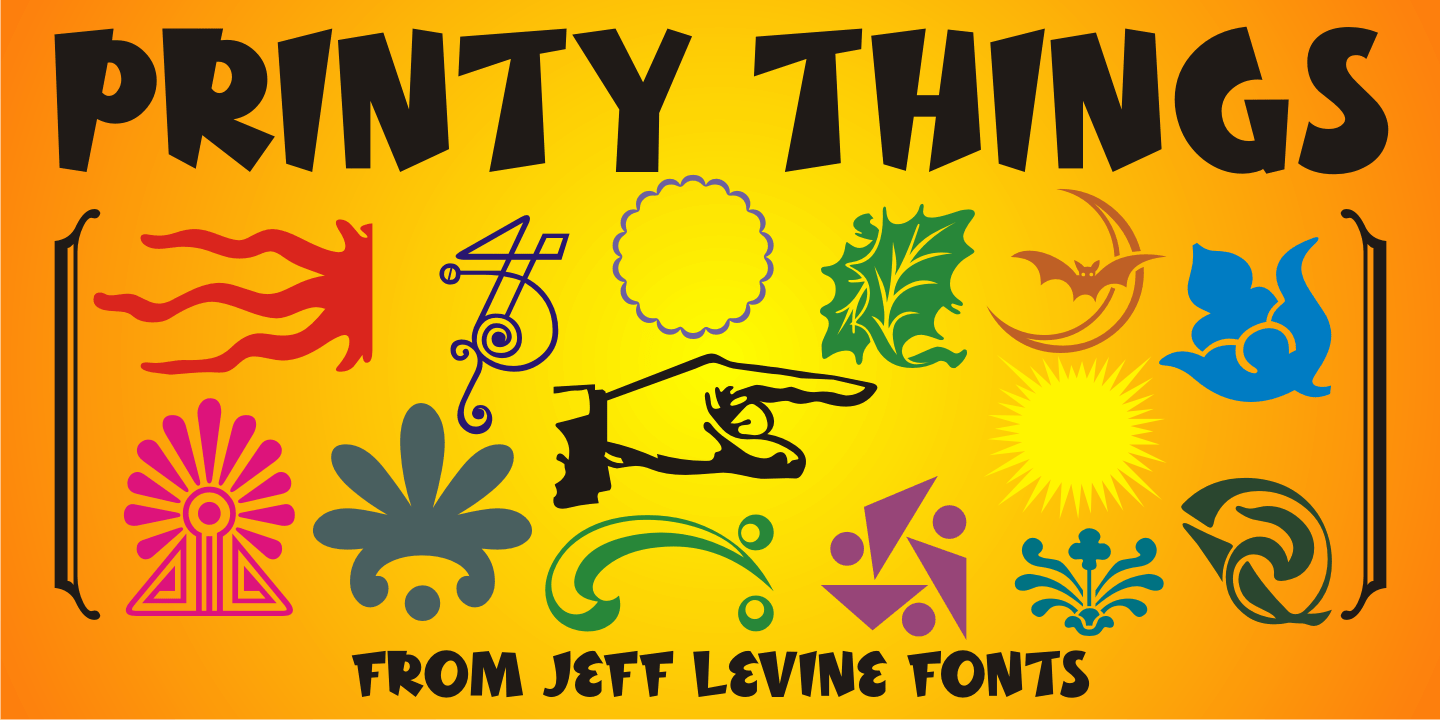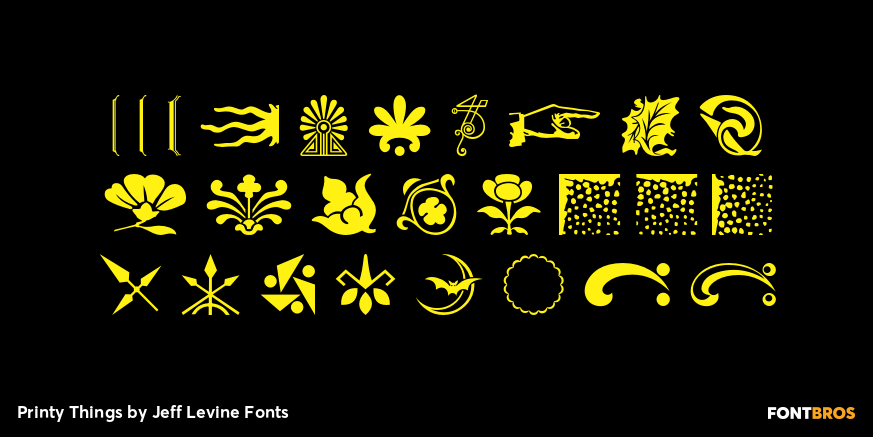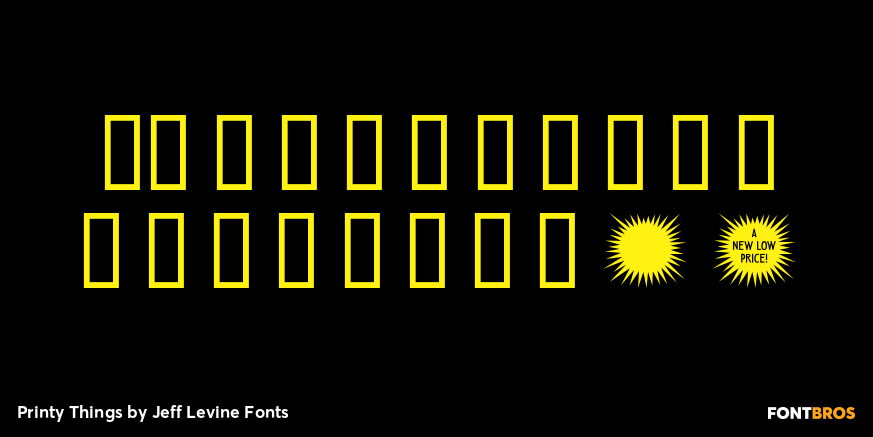
Printy Things
Printy Things JNL gathers together another collection of dingbats, border elements, embellishments and other images from vintage source material.